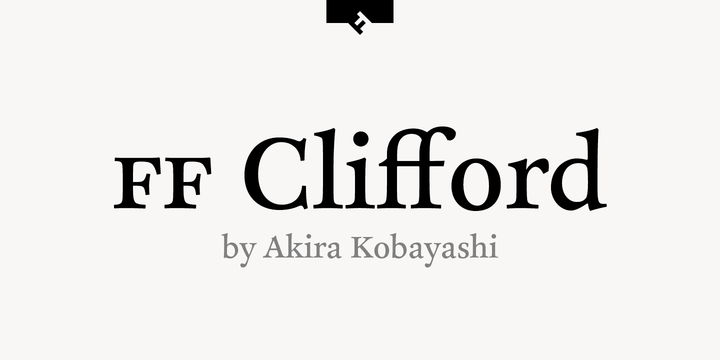
FF Clifford™
by FontFont
The FF Clifford Font Family was designed by Akira Kobayashi and published by FontFont. FF Clifford contains 6 styles and family package options. More about this family
Japanese type designer Akira Kobayashi created this serif FontFont in 1999. The family has 6 weights, (including italics) and is ideally suited for book text, editorial and publishing as well as small text. FF Clifford provides advanced typographical support with features such as ligatures, small capitals, case-sensitive forms, fractions, super- and subscript characters, and stylistic alternates. It comes with a complete range of figure set options – oldstyle and lining figures, each in tabular and proportional widths. FF Clifford received several awards: the U&lc Type Design NY award in 1998 and the TDC2 award in 2000.